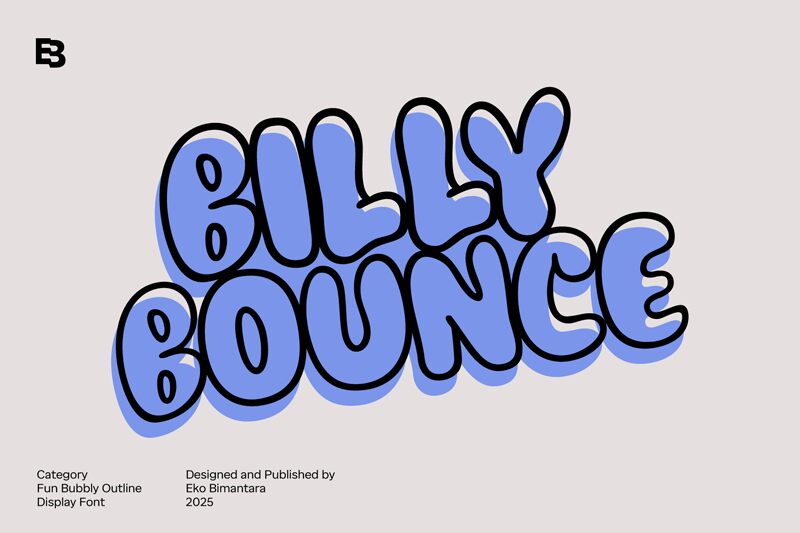
Billy Bounce font is a cartoon-styled free font designed by Eko Bimantara. The font’s exasperated and vivid letters go up and down and on top of each other yet stay connected to provide a lucid visual experience. The typeface depends on its unusual forms to capture the attention of readers and captivate them with its extrinsic aesthetics.
The font pairs well with italic or some serif-type font seeking the desired outcome. The font can be used for gigs design in posters, flyers, tickets, and merchandising. General branding projects for commercial products can also benefit from this font.
Children’s book covers, albums, graphic novels, comics, or movie posters can be created by the font. Cartoon/animated projects and some video games would look extremely good with the correct usage of this font. It can also look good on product packages, from sanitizers to clothes, especially if the product is youth oriented.